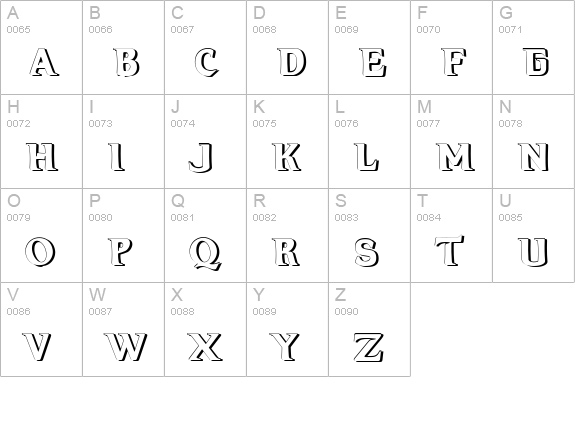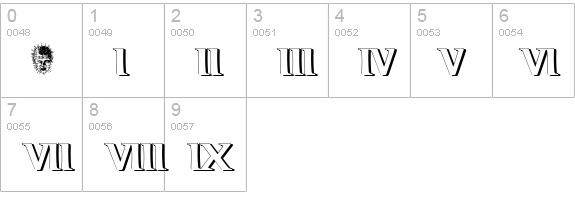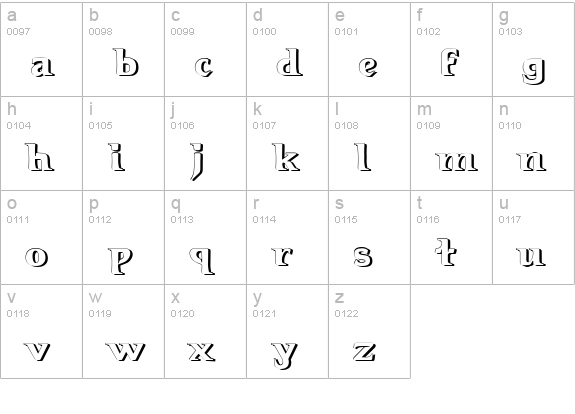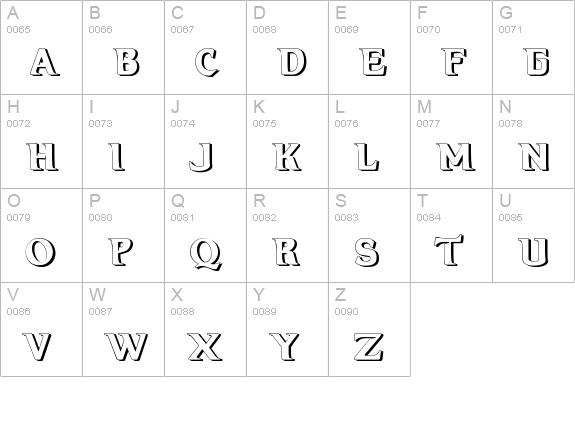
Hellraiser3 Shadow Font Details
Hellraiser3 Shadow is a captivating and edgy font that will add a touch of darkness and mystery to your designs. With its bold and dramatic appearance, this font is perfect for creating eye-catching headlines, logos, posters, and more. The unique shadow effect adds depth and dimension, making your text stand out from the crowd. This font is freely available to download at FontsMarket.com, offering you the opportunity to add this striking typeface to your collection without any cost. Whether you are a designer looking for a font that will make a statement or a creative individual in search of a font that embodies a sense of intrigue, Hellraiser3 Shadow is the ideal choice. The sharp and angular letterforms of Hellraiser3 Shadow exude a sense of danger and rebellion, making it an excellent choice for projects that require a touch of raw energy. Its versatility allows it to work equally well in both digital and print media, giving you the freedom to explore various design possibilities. Create stunning designs that leave a lasting impression with Hellraiser3 Shadow. Download this font for free at FontsMarket.com and unleash your creativity. Whether you are working on a horror-themed project, a music album cover, or simply want to add a gothic touch to your designs, Hellraiser3 Shadow will bring your vision to life. Don't miss out on this incredible opportunity to enhance your designs with a font that is both captivating and freely available for download.